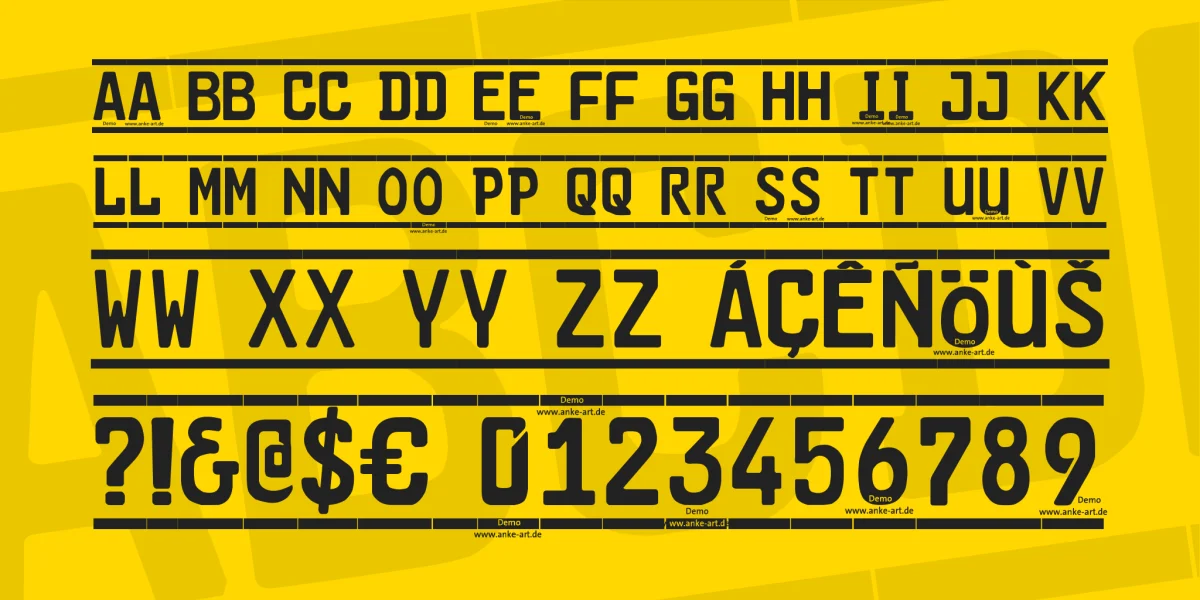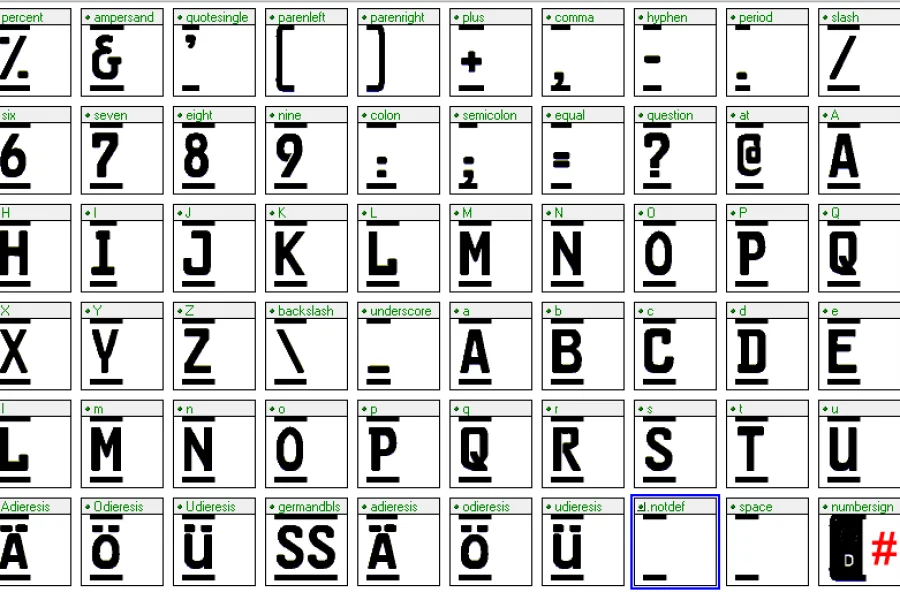
Car-Go Frame is the font used for German licence plates ("FE-Schrift"). This is the version with a frame, making it look like an actual licence plate (character map included for easy use). Great for modelbuilding.